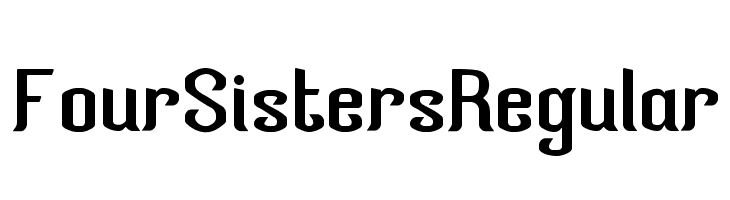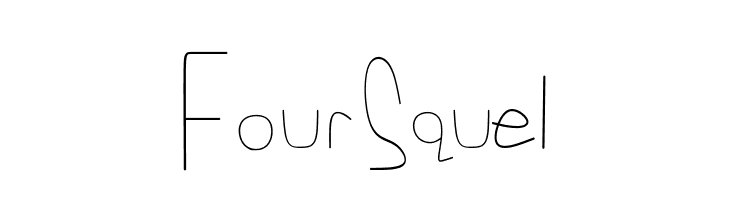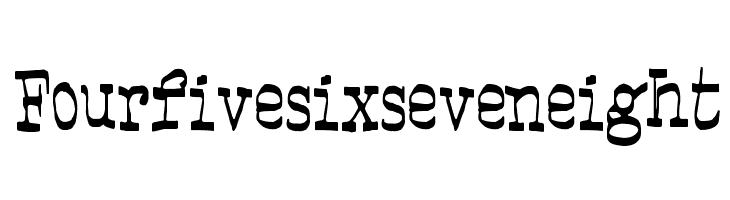
An elegant script font with flowing cursive letters and refined flourishes.
( Design Spacifx )
A bold, dynamic font with geometric and organic elements, offering a modern yet retro feel.
A playful, hand-drawn font with thin, elongated characters.
Ornate arrow symbols in bold quatrefoil frames.
A bold, playful, hand-drawn font with irregular, whimsical characters.
A casual, handwritten font with a playful and energetic style.
( Fonts by JOEBOB graphics )
A playful, handwritten font with smooth curves and dynamic letterforms.
A bold, distressed font with a grunge texture and vintage appeal.
An elegant, cursive script font with fluid, handwritten strokes.